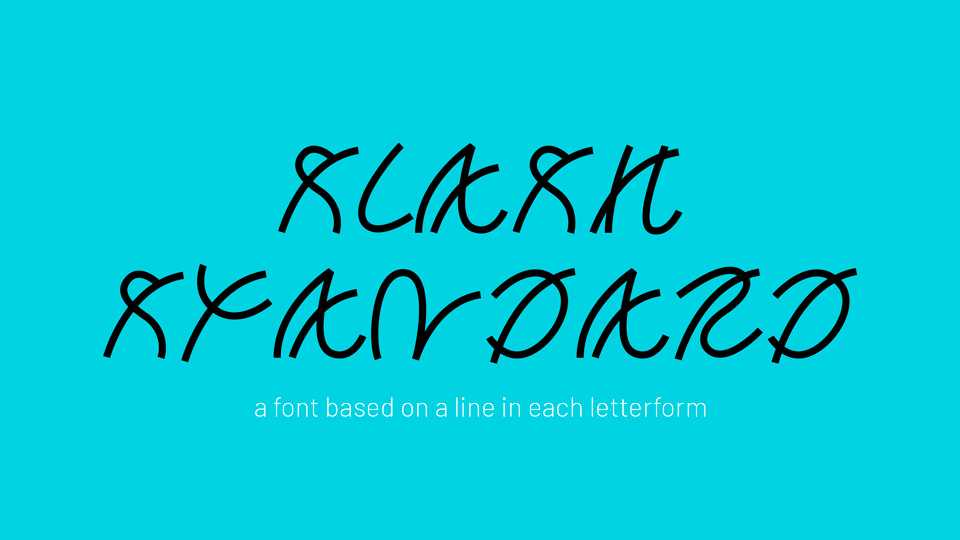
Download Slash Standard font, a display typeface in one weight based on a line that would appear in each letterform. Slash Standard is best for posters and contemporary artworks.
Designer: Rory King